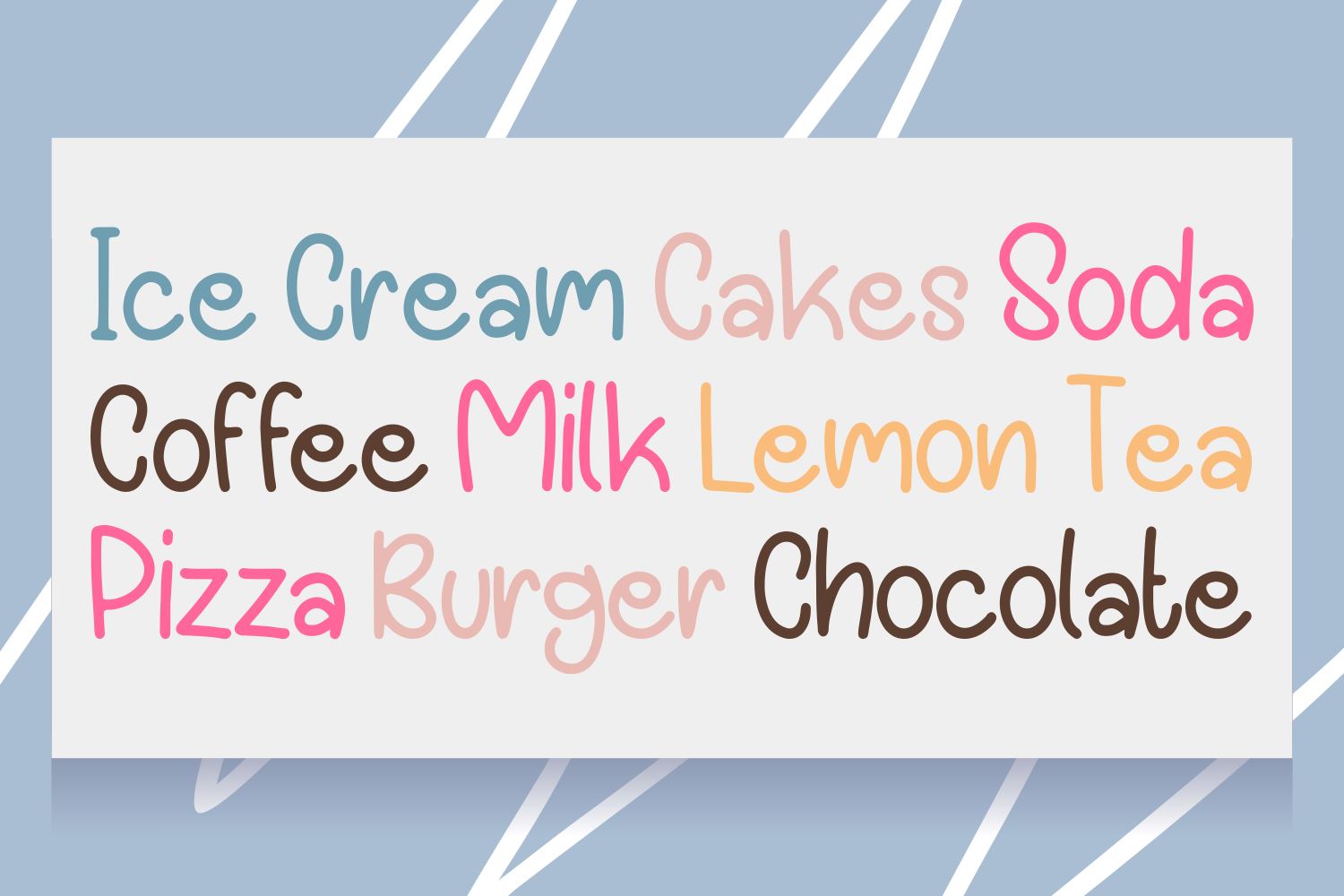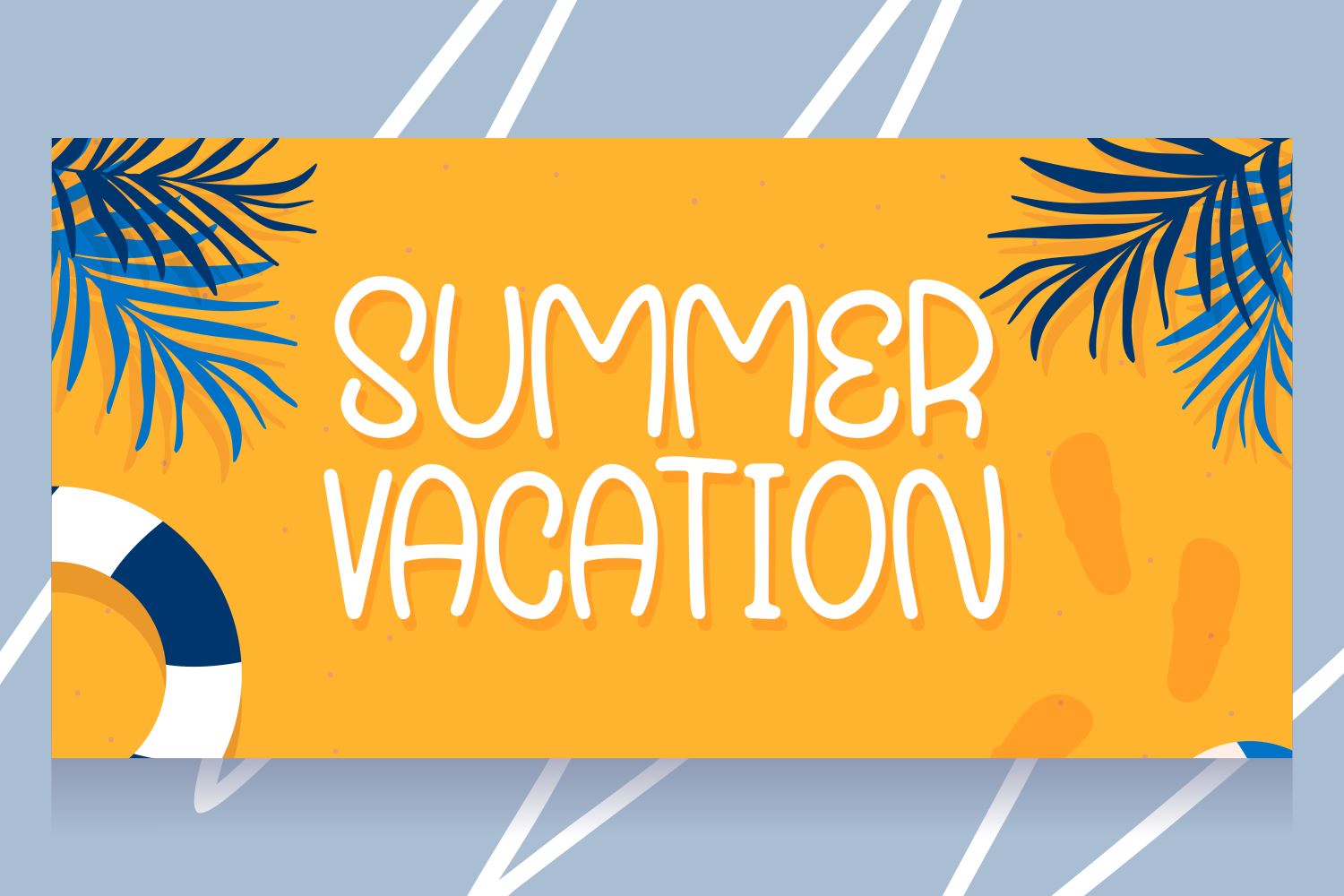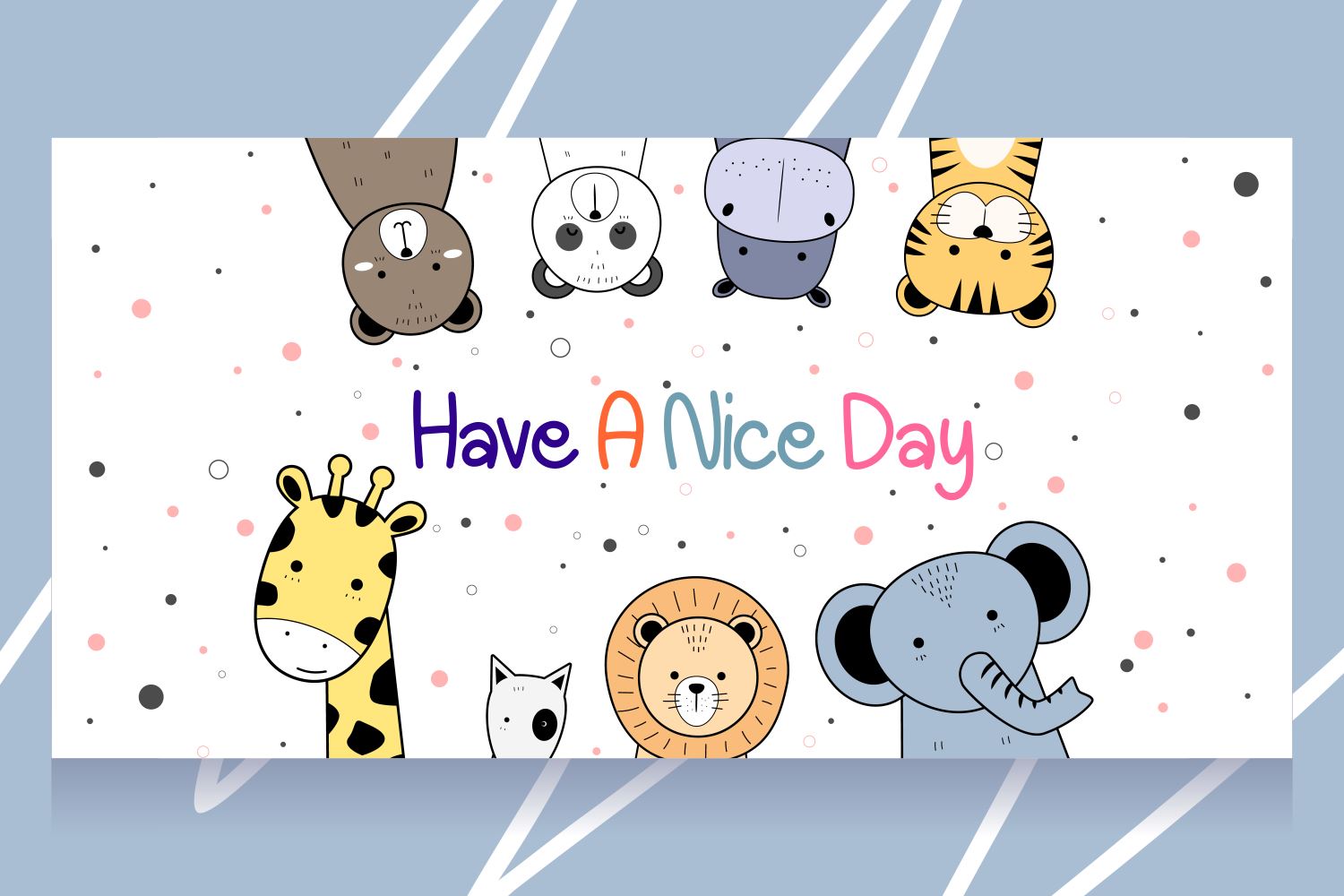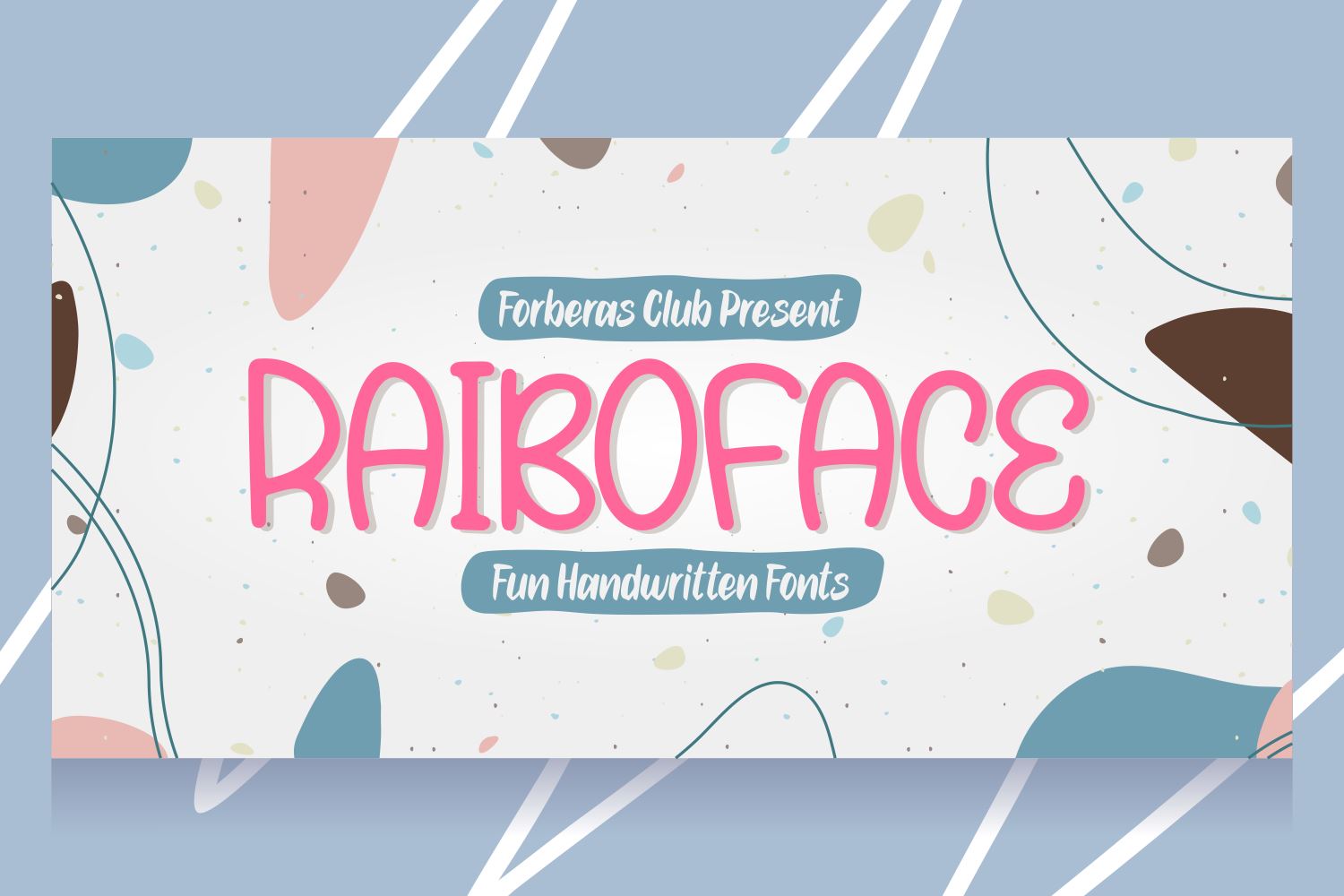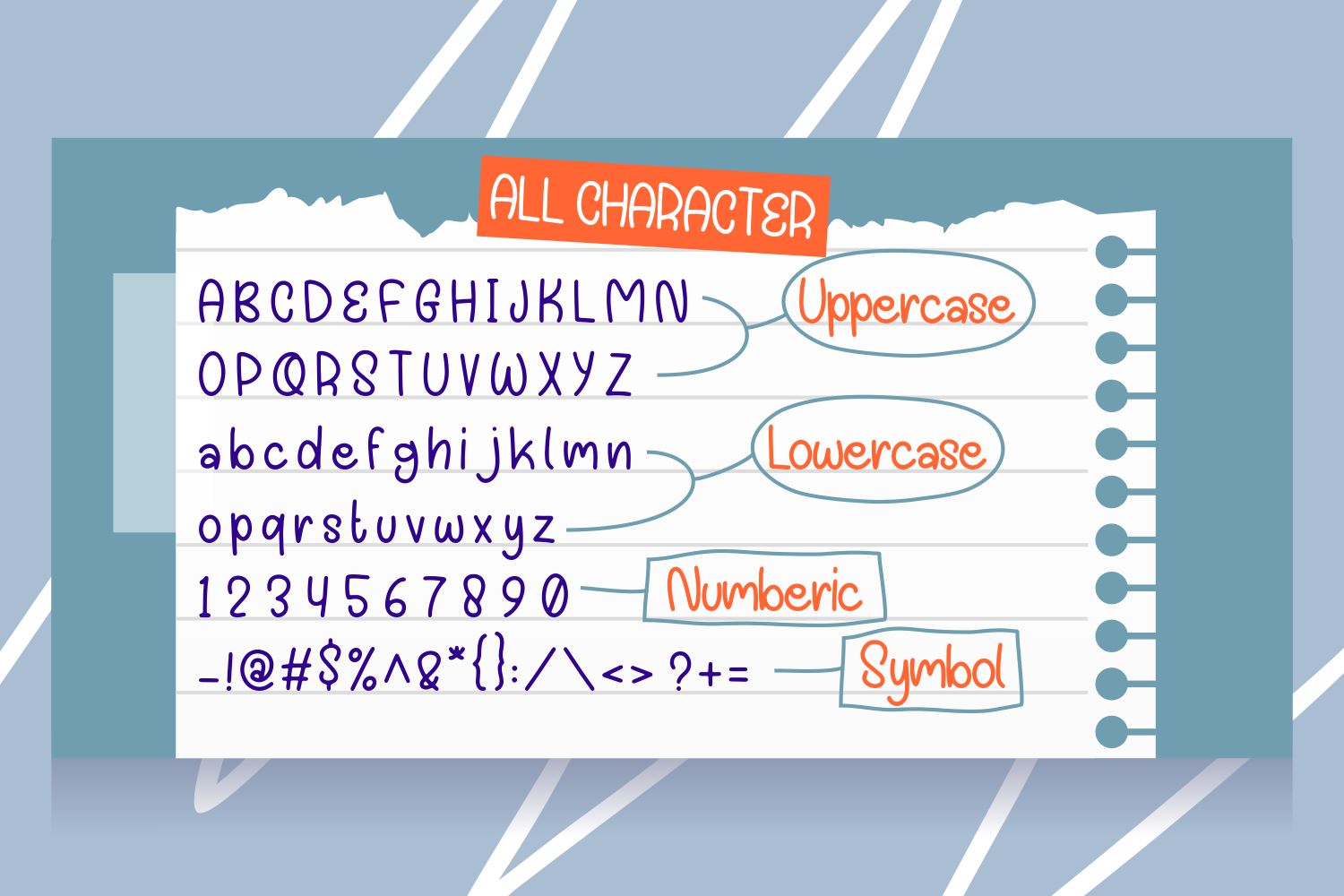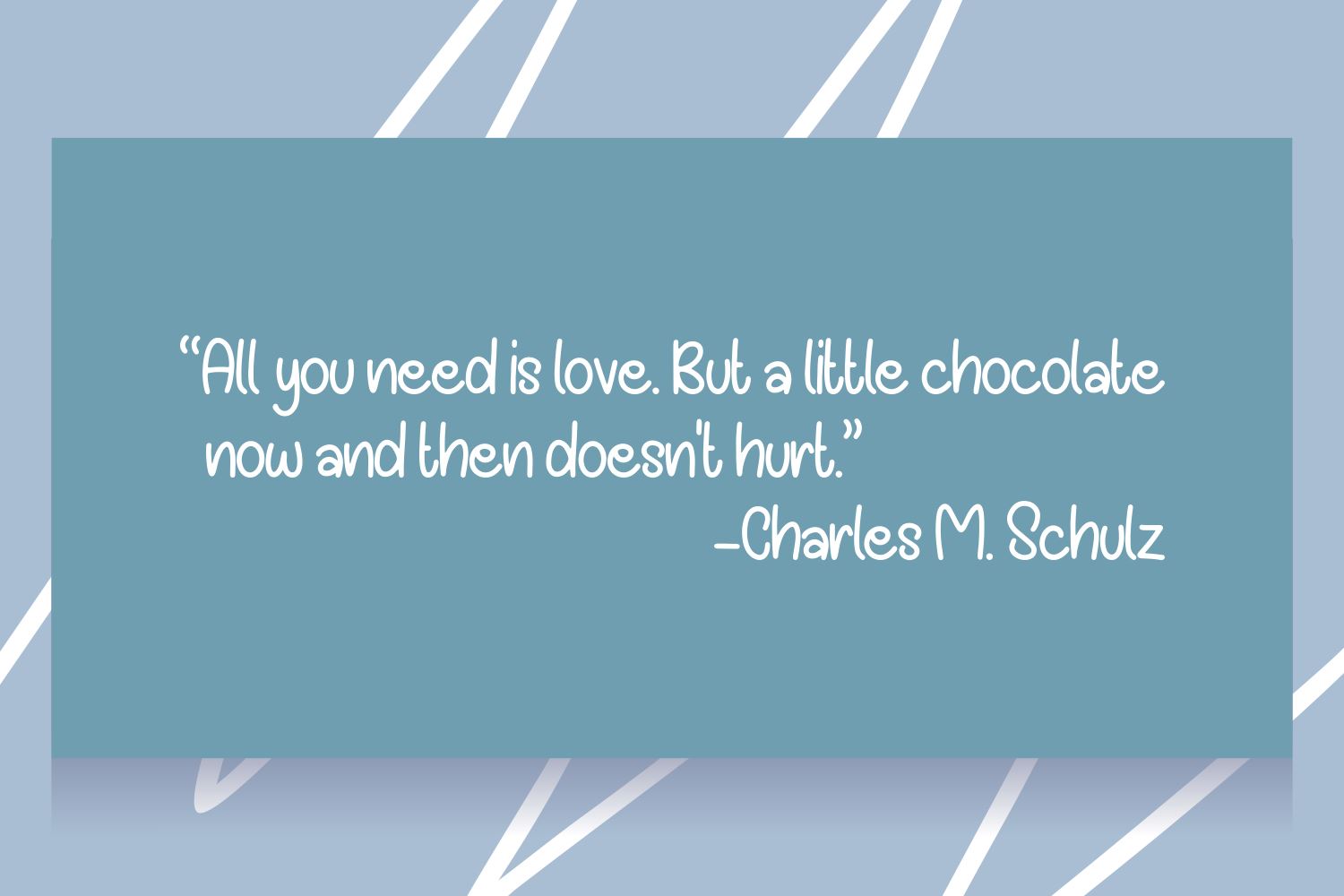
Rainboface
About Rainboface
Introducing Rainboface Font by Forberas Club Rainboface is a Modern Handwritten Font. Rainboface is perfect for book cover, product packaging, branding project, megazine, social media, wedding, or just used to express words above the background.This font includes TTF and OTF, This font also multilingual support.